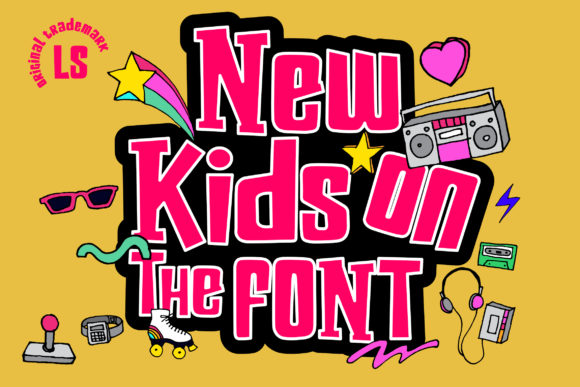
Are you tired of boring and plain fonts that fail to capture the attention of your audience? Look no further, because we have just the font for you! Introducing New Kids on the Font, a cute and colorful display font that will bring joy and excitement to any project.
Created by Gumacreative, this font is specifically designed to embody playfulness and authenticity. With its vibrant colors and charming style, New Kids on the Font is the perfect choice for any children's activity or school project. Whether you're designing a flyer for a kid's birthday party or creating educational materials for a classroom, this font will surely make your work stand out.
But what sets New Kids on the Font apart from other fonts? Let's dive into its remarkable features and discover why it's a must-have for anyone looking to elevate their designs.
First and foremost, this font is keyword-rich, making it highly optimized for any e-commerce platform. If you're searching for the perfect font for jersey lettering, New Kids on the Font is your answer. Its bold and eye-catching letters will make any team name or slogan pop, ensuring that your design gets noticed both on the field and off.
Not only is New Kids on the Font visually striking, but it also speaks to the emotions of your audience. Its playful curves and lively strokes evoke a sense of joy and excitement, instantly capturing the hearts of both children and adults alike. Imagine the smiles that will light up their faces when they see your designs brought to life with this captivating font.
Moreover, this font is incredibly versatile. It can be used for a variety of projects, ranging from children's books and invitations to posters and websites. Its flexibility allows you to explore your creativity and experiment with different styles, ensuring that every design you create is unique and captivating.